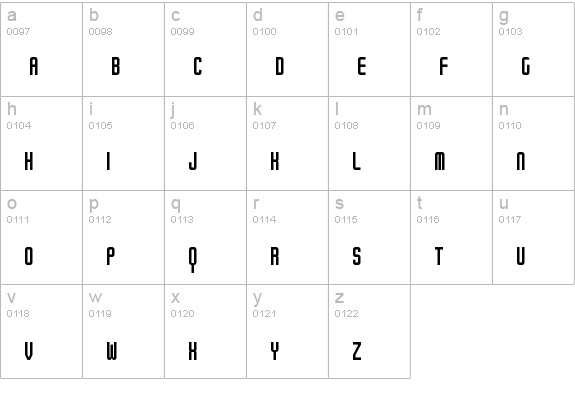
Brighton SmallCaps NBP Font Details
Introducing Brighton SmallCaps NBP, a stunning and versatile font that will take your design projects to the next level. With its elegant and sophisticated aesthetic, this font is the perfect choice for adding a touch of class and professionalism to your work. Brighton SmallCaps NBP features beautifully crafted small caps, meticulously designed to bring a unique and refined look to any typographic composition. Whether you're working on branding materials, invitations, advertisements, or any other creative endeavor, this font will effortlessly elevate your designs. What sets Brighton SmallCaps NBP apart is not only its impeccable style but also its accessibility. This font is available for free, allowing designers of all levels to enjoy its exceptional qualities without any budget constraints. Simply head over to FontsMarket.com, and you'll be able to download this incredible font, completely free of charge. With Brighton SmallCaps NBP, you can unleash your creativity and bring your design visions to life. Its versatility makes it suitable for a wide range of applications, ensuring that your projects will always stand out from the crowd. Whether you're creating a professional presentation, designing a magazine layout, or even crafting personalized stationery, Brighton SmallCaps NBP will undoubtedly become your go-to font. Its clean lines, balanced proportions, and exquisite detailing will capture attention and leave a lasting impression on anyone who encounters your designs. So don't miss out on this incredible opportunity to enhance your design arsenal. Download Brighton SmallCaps NBP for free at FontsMarket.com today and unlock a world of endless possibilities. Elevate your typography game and make a lasting impact with this exceptional font.